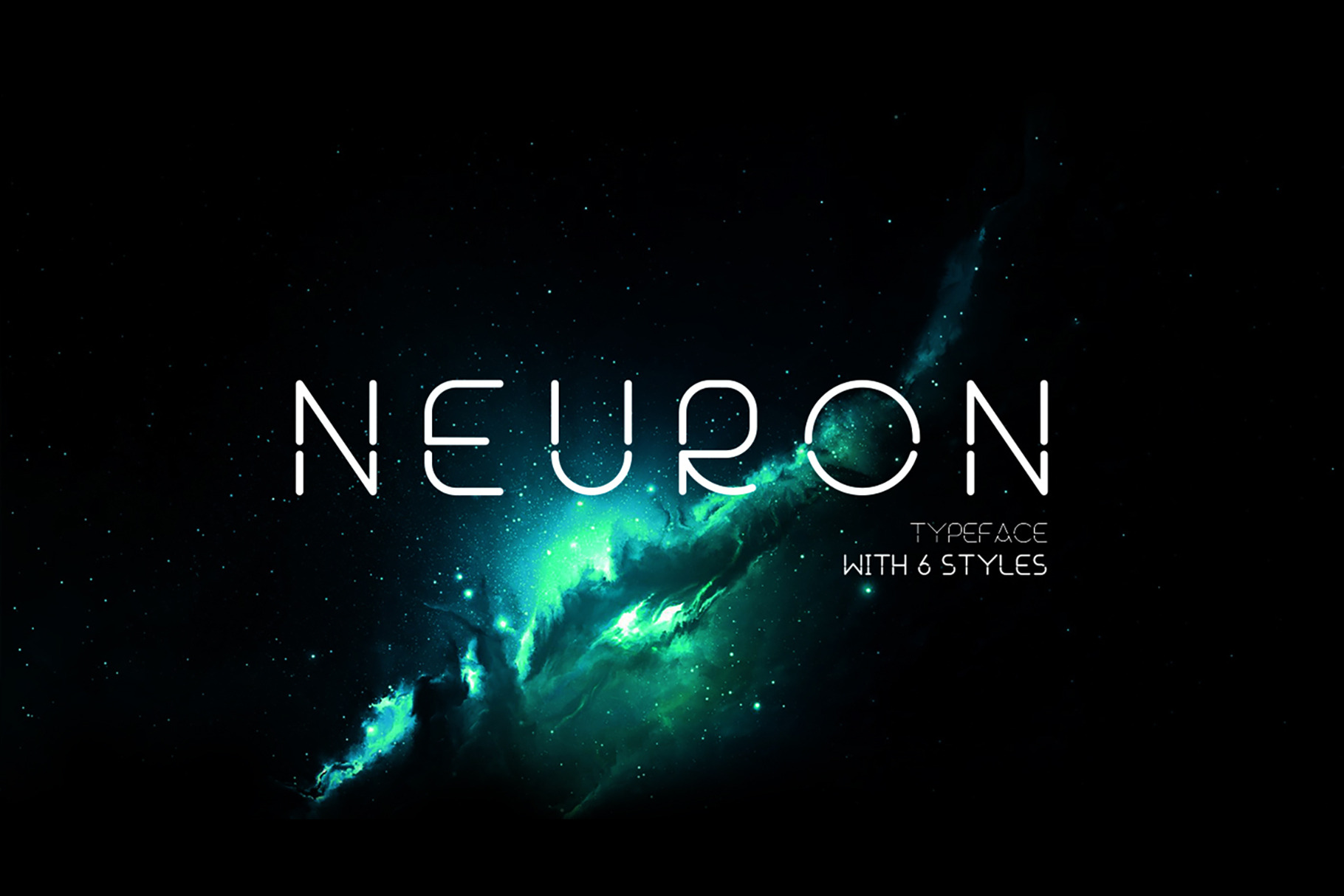
Neuron - Spatial Typeface 6 Weights
Neuron Typeface is a contemporary take on the futuristic geometric sans serif style of space theme. The cold, geometrical shapes typical of those modernist typefaces have been made softer and more contemporary by visual corrections and slightly rounded corners and a minimalistic design feel.
It comes in seven weights with matching italics and features an extended character set with open type support for small caps, ligatures, alternates, only basic English letters and numbers.